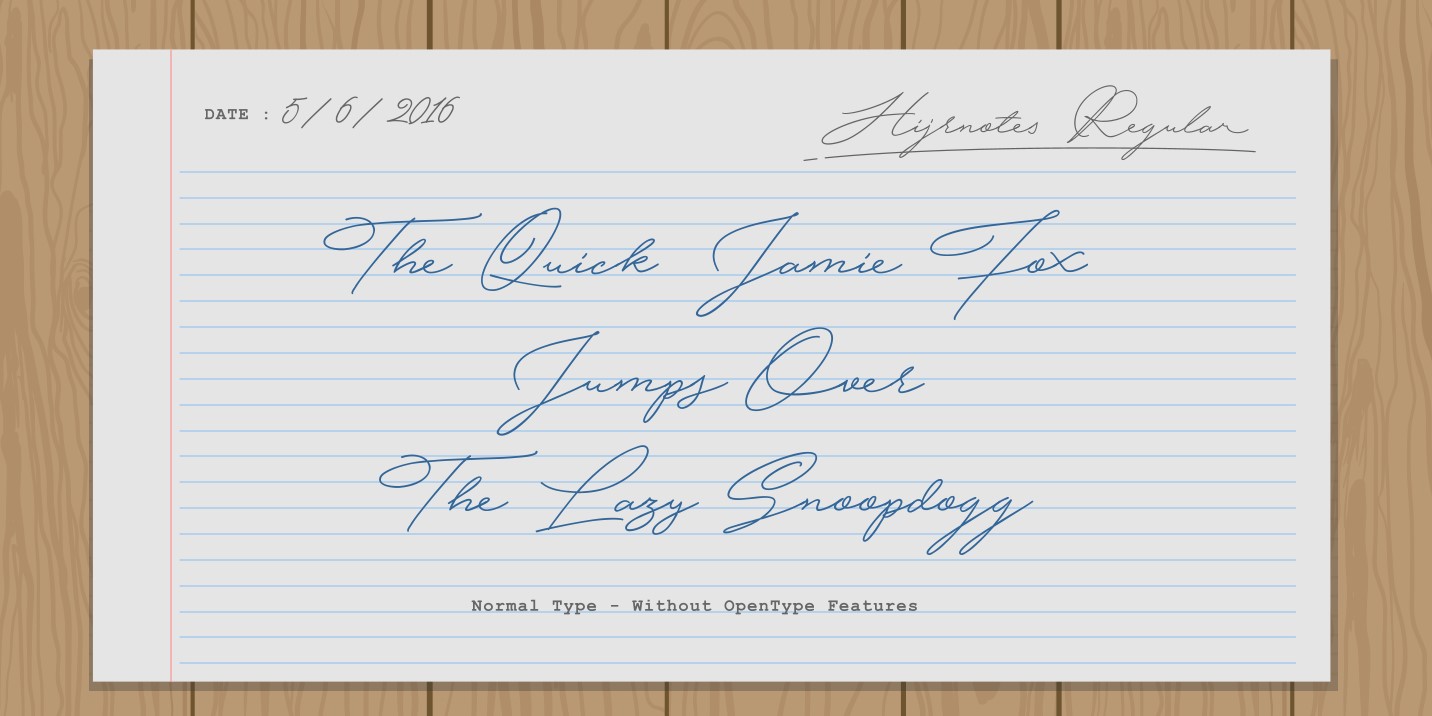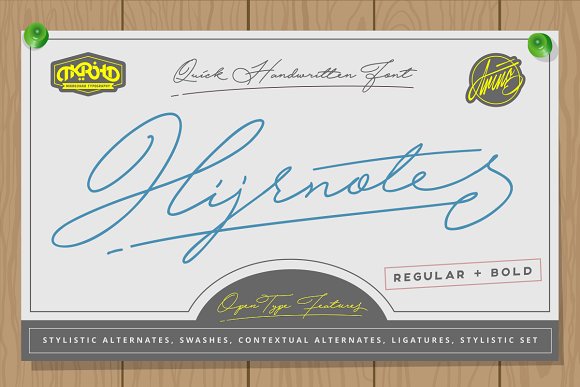
Hijrnotes Script Font
Hijrnotes script font is widely popular for its text generation function. This typeface is used in the mug printing and it is also known as tesla font. It makes fonts suitable for posters. The package deal is available in terrific patterns: emerald or splatter.it is fantastic for emblems, t-blouse designs, and signage.